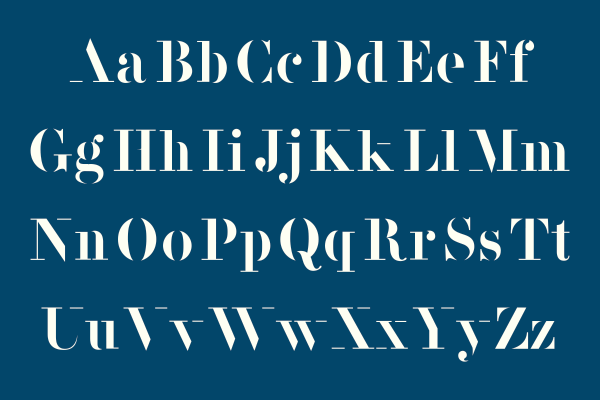
7GUN
Design site in Moscow. Creators of the geometric figure (Latin) stencil typeface Caribe Modular (2013), which was created as a project for the British Higher School of Art & Design. Intrnal Hybrid (2013) was also completed at the British Higher School of Art & Design in Moscow. Deriz (2013) is a high-contrast didone titling face. Intrnal Hybrid (2013) is a grungy techno Cyrillic typeface. Vintage and Coupage Font emulates various wood type and letterpress styles.